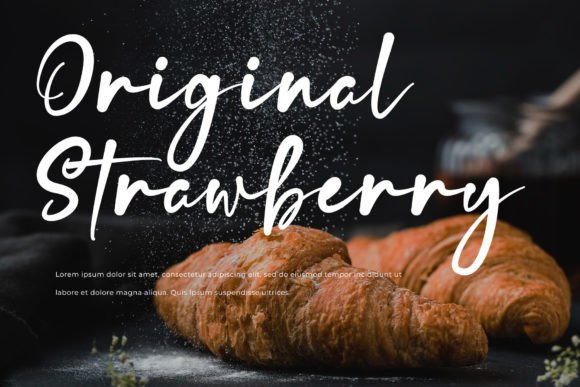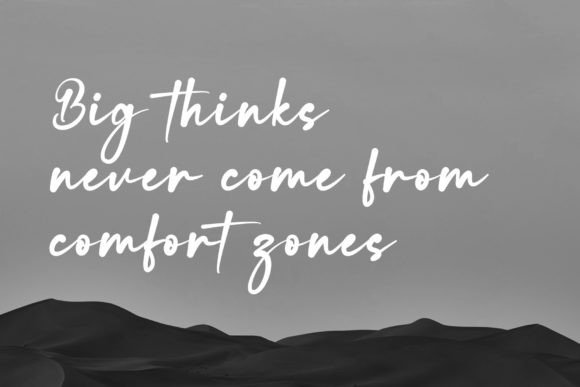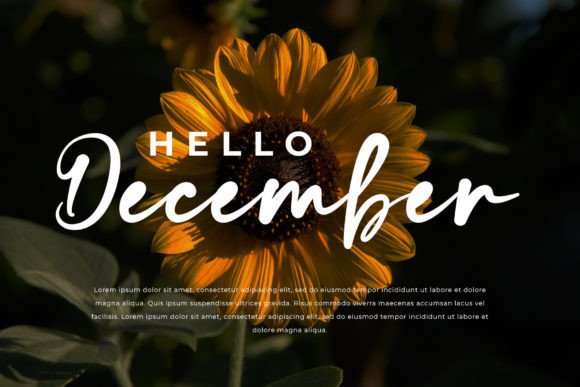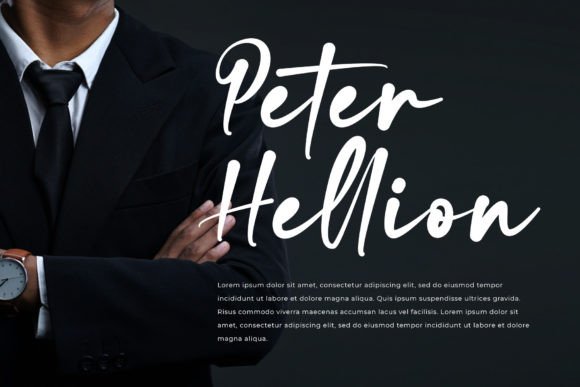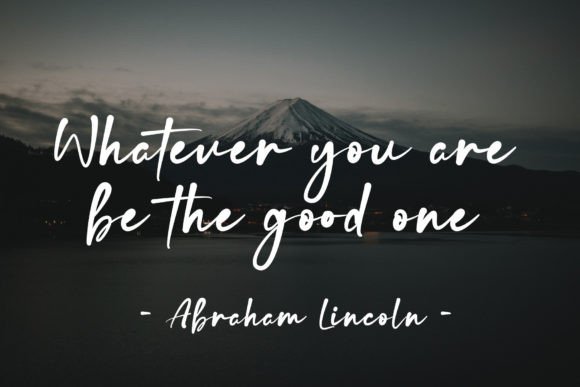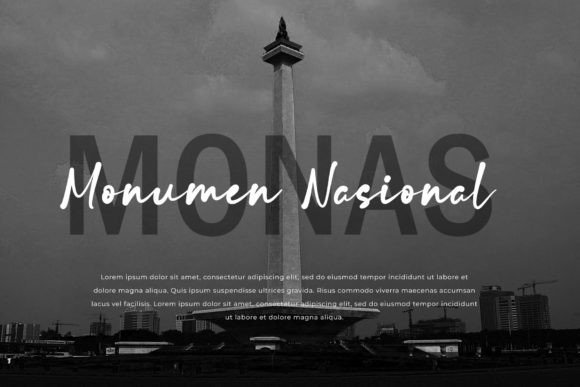
Belliones Font: Elevate Your Designs with a Touch of Elegance
In the world of typography, a font can make all the difference in the success of a design project. Whether you’re a seasoned designer or a crafty DIY enthusiast, finding the right font can be a daunting task. That’s where Belliones comes in – a splendid handwritten font that adds a unique touch to any design. In this article, we’ll explore the features and benefits of Belliones and how it can take your projects to the highest levels.
What is Belliones Font?
Belliones is a beautifully crafted handwritten font that boasts unique characters, making it perfect for a wide range of design applications. Its elegant and flowing script is ideal for creating stunning logotypes, branding materials, promotional ads, quotes, packaging, t-shirt designs, merchandise, posters, social media posts, and more.
Key Features of Belliones Font
- Unique Characters: Belliones features distinctive characters that set it apart from other fonts, giving your designs a one-of-a-kind look.
- Handwritten Style: The font’s handwritten style adds a touch of warmth and personality to your designs, making them more relatable and engaging.
- Versatile: Belliones is incredibly versatile, making it suitable for a wide range of design projects, from logos and branding to social media posts and merchandise.
- Elegant and Sophisticated: The font’s elegant and sophisticated design makes it perfect for high-end branding, luxury packaging, and premium products.
Benefits of Using Belliones Font
So, why choose Belliones for your design projects? Here are just a few benefits of using this amazing font:
- Stand Out from the Crowd: With Belliones, you can create designs that stand out from the competition and grab attention.
- Elevate Your Brand: The font’s elegant and sophisticated design can help elevate your brand’s image and create a lasting impression.
- Easy to Read: Despite its unique and artistic style, Belliones is easy to read, making it perfect for body text and captions.
- Customizable: The font is highly customizable, allowing you to adjust the size, color, and style to fit your design needs.
Design Applications for Belliones Font
Belliones is an incredibly versatile font that can be used in a wide range of design applications, including:
- Logotypes and Branding: Create stunning logos and branding materials that showcase your unique identity.
- Promotional Ads: Use Belliones to create eye-catching promotional ads that grab attention and drive results.
- Packaging: Add a touch of elegance to your packaging designs with this beautiful font.
- T-Shirt Designs: Create stunning t-shirt designs that stand out from the crowd.
- Merchandise: Use Belliones to create unique and eye-catching merchandise, such as mugs, tote bags, and more.
- Posters: Create stunning posters that showcase your message in a beautiful and elegant way.
- Social Media Posts: Elevate your social media posts with this amazing font and make your content stand out.
Tips for Using Belliones Font
To get the most out of Belliones, here are a few tips to keep in mind:
- Experiment with Sizes: Play around with different font sizes to find the perfect balance for your design.
- Mix and Match: Combine Belliones with other fonts to create a unique and visually appealing design.
- Pay Attention to Color: Choose colors that complement the font and enhance the overall aesthetic of your design.
- Keep it Simple: Don’t overcomplicate your design – sometimes, simplicity is the best way to showcase the beauty of the font.
In conclusion, Belliones is an exceptional handwritten font that can elevate your designs to new heights. With its unique characters, elegant style, and versatility, it’s perfect for a wide range of design applications. Whether you’re a designer, crafty DIY enthusiast, or social media influencer, Belliones is sure to become a go-to font in your design arsenal. So why wait? Give Belliones a try today and see the difference it can make in your designs!